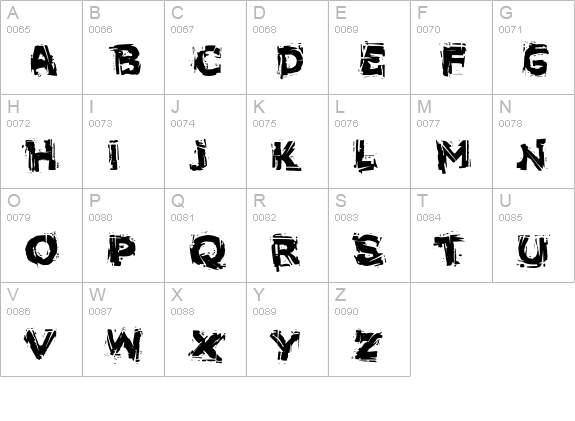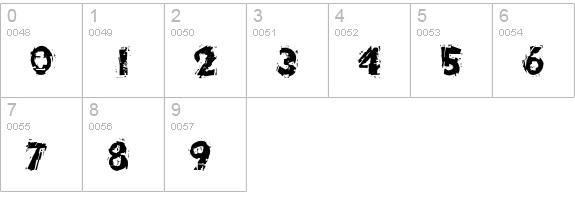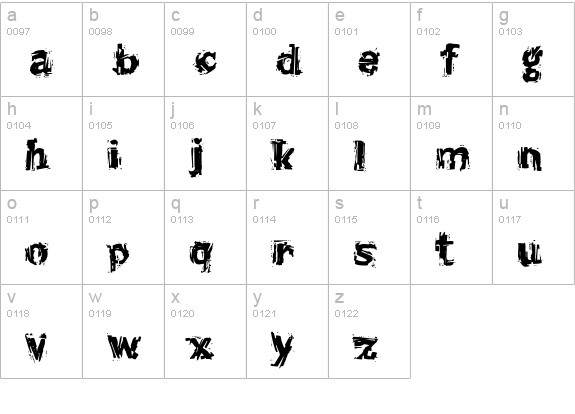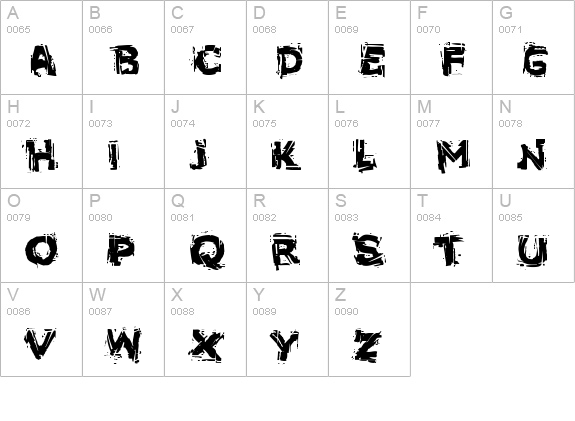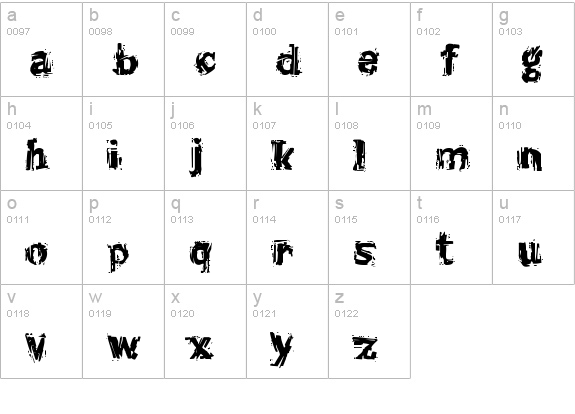
Havoc font is a stunningly bold and impactful typeface that exudes a sense of power and chaos. With its sharp, angular letterforms and heavy strokes, Havoc commands attention and makes a bold statement. This versatile font is perfect for headlines, logos, and any design project that requires an edgy and rebellious touch. What sets Havoc font apart is not only its striking aesthetics but also the fact that it is free. Yes, you read that right. Havoc font is freely available to download at FontsMarket.com. This means that you can unleash your creativity and incorporate this dynamic typeface into your designs without any financial constraints. Whether you are a professional designer or an aspiring creative, Havoc font offers endless possibilities. Its unique design and character make it stand out from the crowd, giving your projects a distinctive and memorable look. From posters and flyers to website headers and social media graphics, Havoc font will bring your ideas to life in a bold and captivating way. So why wait? Don't miss out on the opportunity to enhance your design arsenal with this remarkable font. Download Havoc font for free at FontsMarket.com and let your imagination run wild. Embrace the chaos and make a lasting impression with Havoc font.